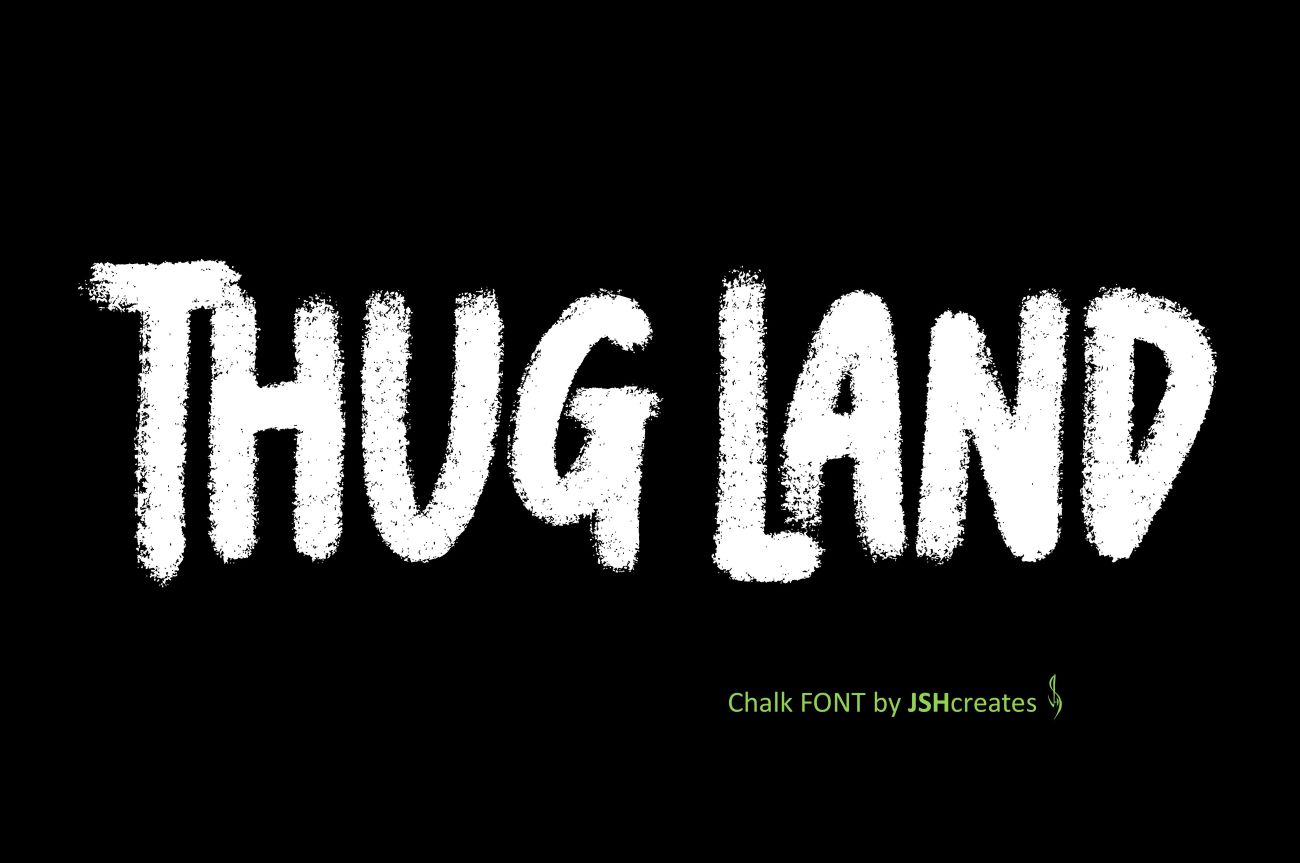
Thug Land Font
Handlettered chalk font. “Thug Land”. Perfect for advertising and display purposes, including banners, book covers, shirts, posters, logos and much more!
This is an All Caps font, including numbers, characters and punctuation.